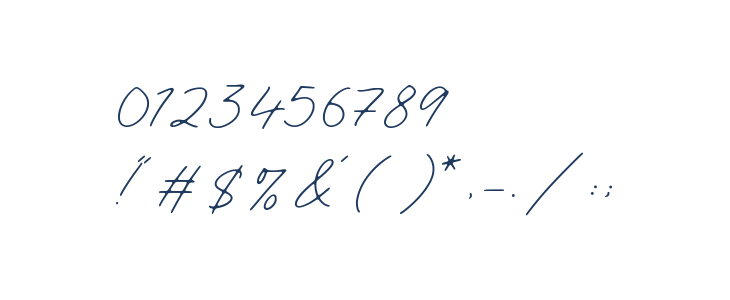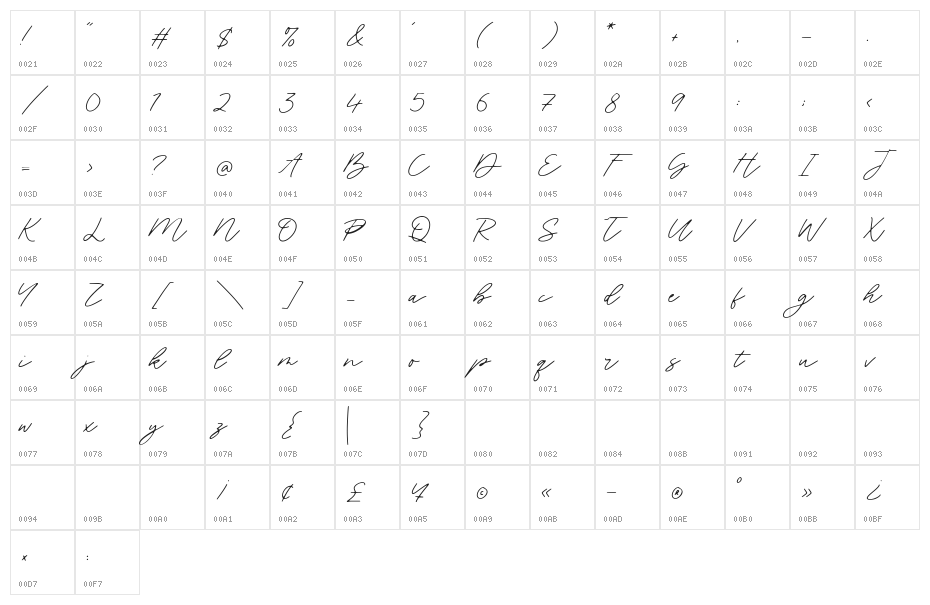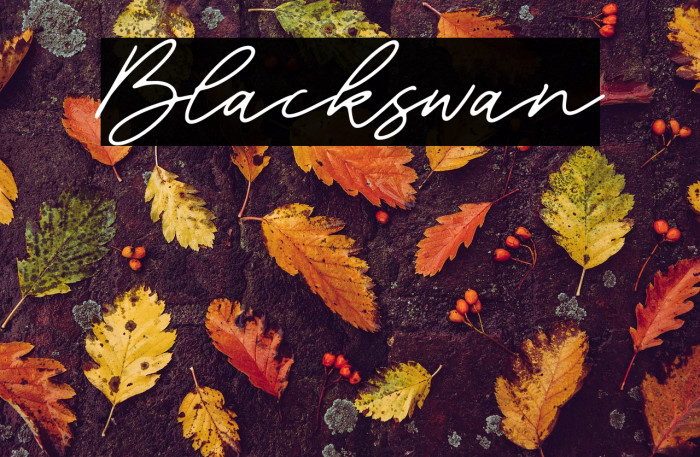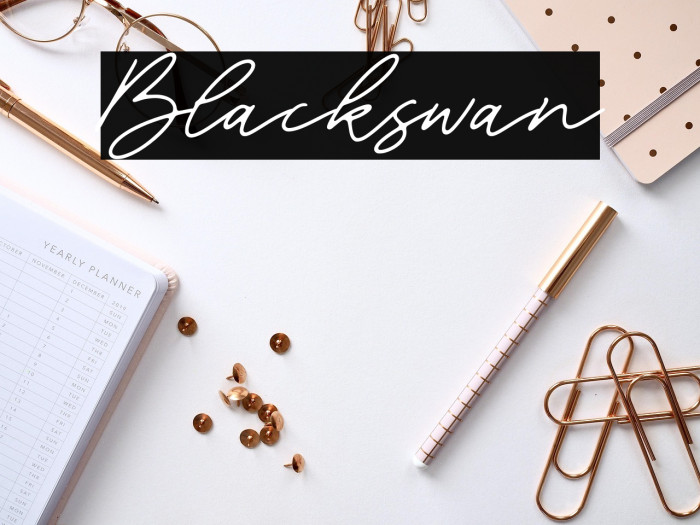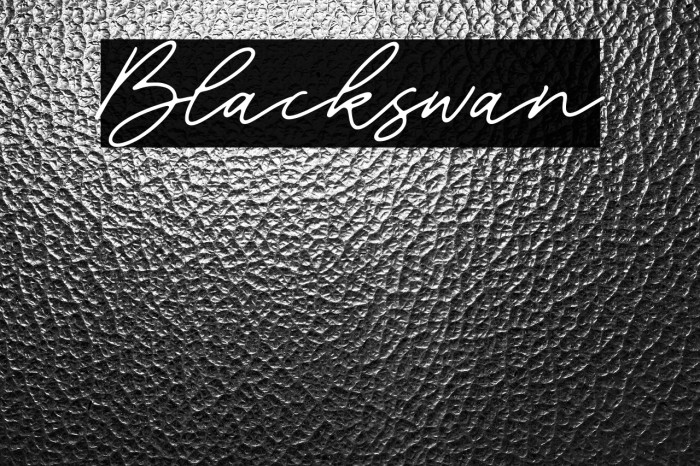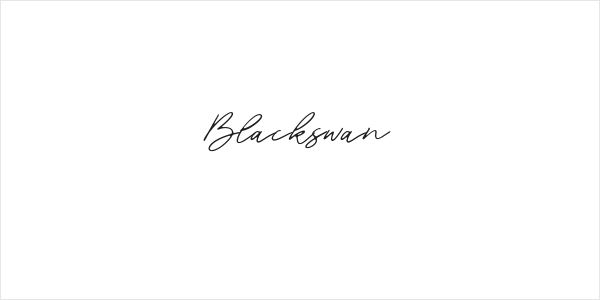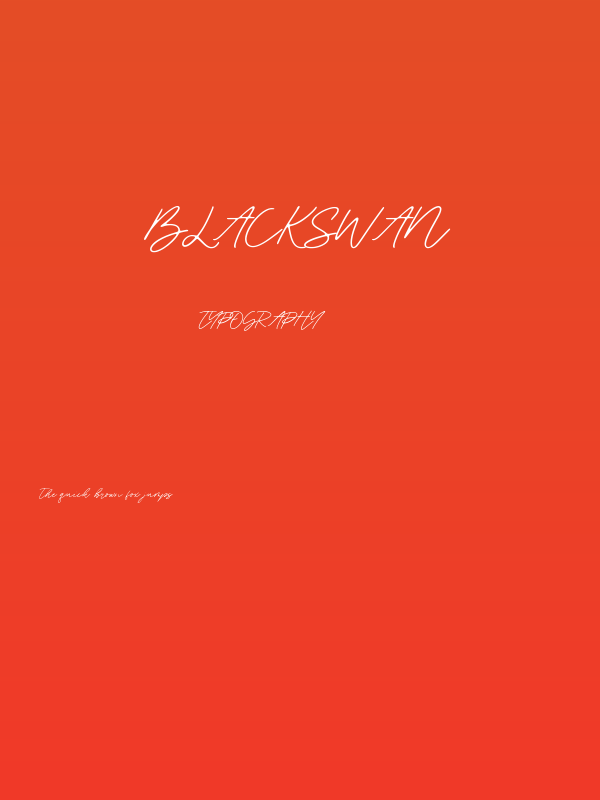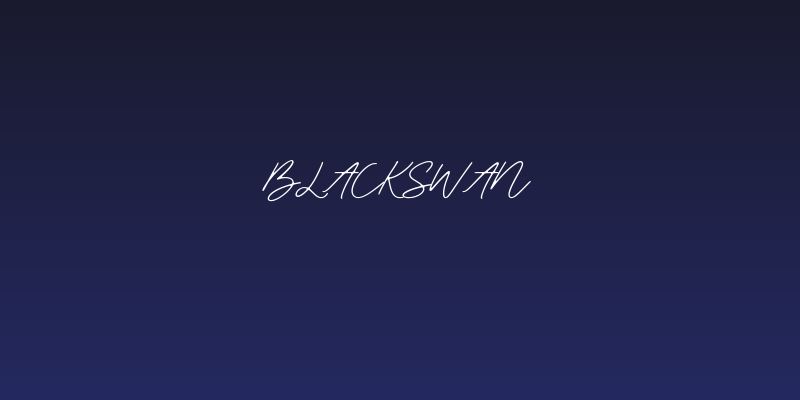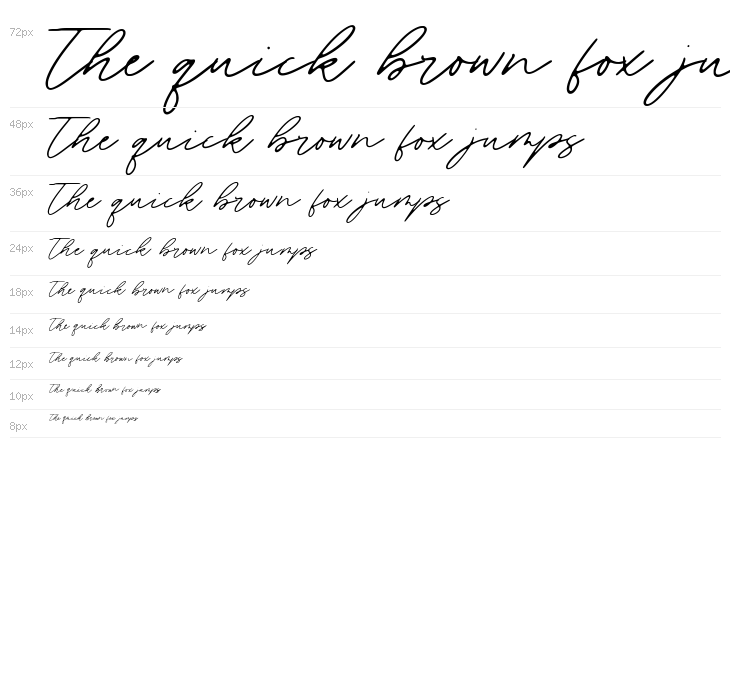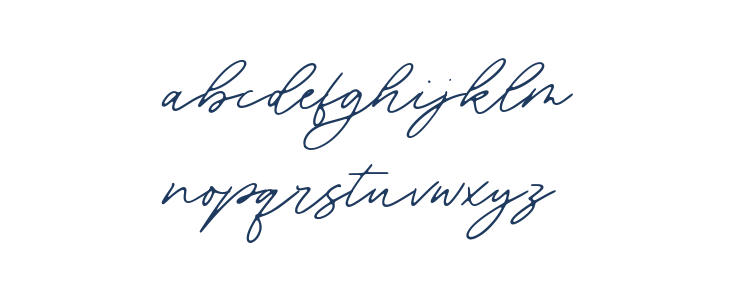
Blackswan Font
Blackswan Description
This elegant script font features a flowing, cursive style with a natural, handwritten appearance. The characters are connected, creating a seamless and fluid look that is both sophisticated and approachable. The uppercase letters are slightly larger and more pronounced, while the lowercase letters maintain a consistent flow. The numbers and special characters are designed to match the overall aesthetic, ensuring a cohesive appearance across all text. The font's delicate strokes and smooth curves make it ideal for adding a personal touch to any design. Its versatility allows it to be used in a variety of contexts, from formal invitations to casual branding projects.
Overall StyleElegant, Handwritten
Use CaseLogos, Invitations, Personal Branding
Proposed ProjectsIdeal for wedding invitations, greeting cards, personal branding, and elegant packaging designs.